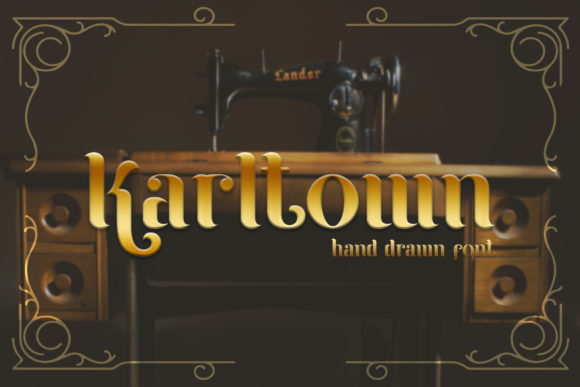
Dive into the world of Karltown Font, the captivating display font that oozes vintage charm and playful energy. Crafted by the skilled hands at StringLabs, Karltown is not just a font; it's an artistic journey that transports you back to an era of bold designs and timeless aesthetics.
Step into a realm where creativity knows no bounds, where every letter dances off the page with a whimsical flair. Karltown's distinct character adds an instant touch of nostalgia and sophistication to any project, whether it's a retro-inspired logo, an eye-catching poster, or a captivating social media campaign.
With Karltown, you have the power to transform ordinary designs into extraordinary masterpieces. Its bold strokes and playful curves command attention, while its vintage undertones evoke a sense of timeless elegance. Let your imagination run wild as you explore the endless possibilities that Karltown Font unlocks.
Picture this: your designs adorned with Karltown's enchanting aura, captivating your audience with every stroke. Watch as your creations take on a life of their own, telling stories and igniting emotions through the power of typography.
Don't settle for ordinary fonts that blend into the background. Embrace the uniqueness of Karltown and let your designs shine brighter than ever before. Its versatility knows no limits, allowing you to effortlessly enhance everything from branding materials and website designs to social media posts and product packaging.
With Karltown Font, you're not just downloading a font – you're embarking on an adventure into the world of visual storytelling. It's a font that breathes life into your designs, a font that turns ideas into unforgettable experiences.
So, why wait? Embrace the magic of Karltown Font today and let your creativity soar to new heights. Let your designs speak volumes, leaving a lasting impression on all who encounter them.